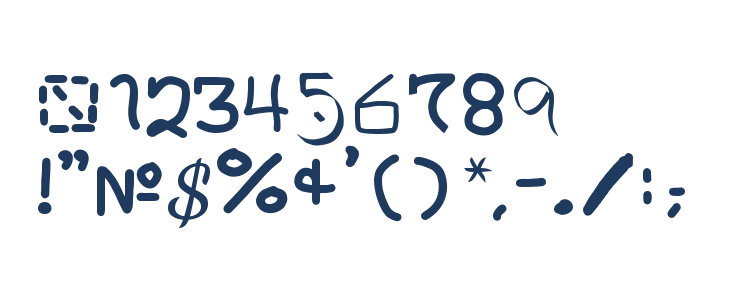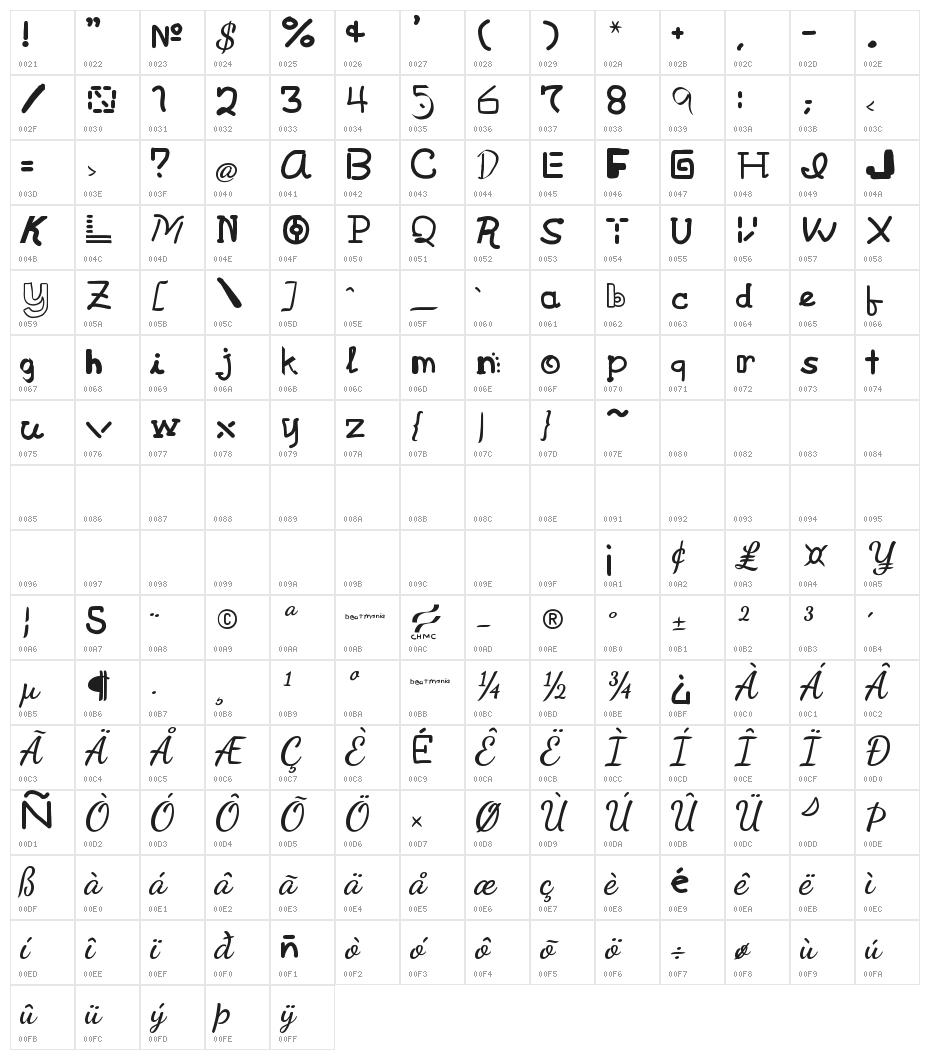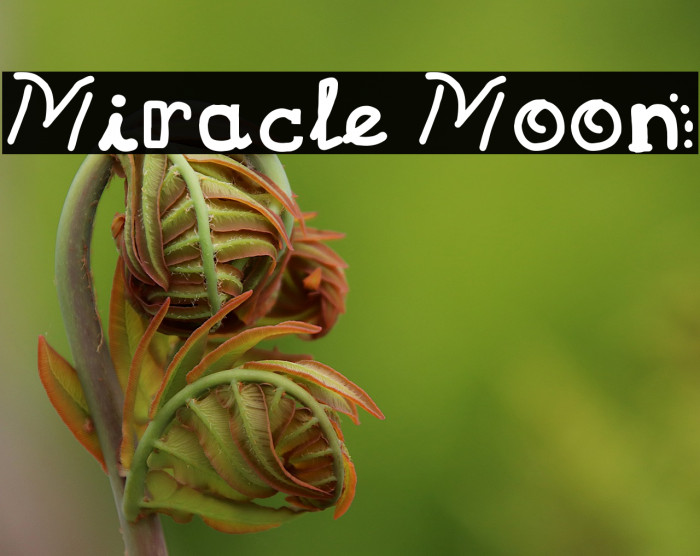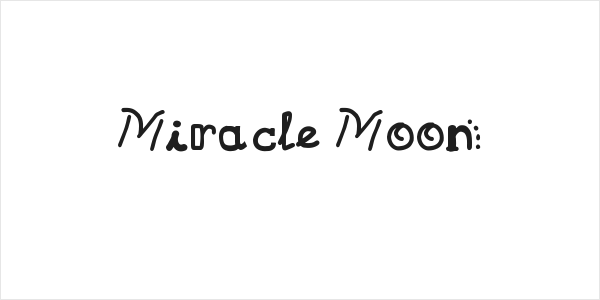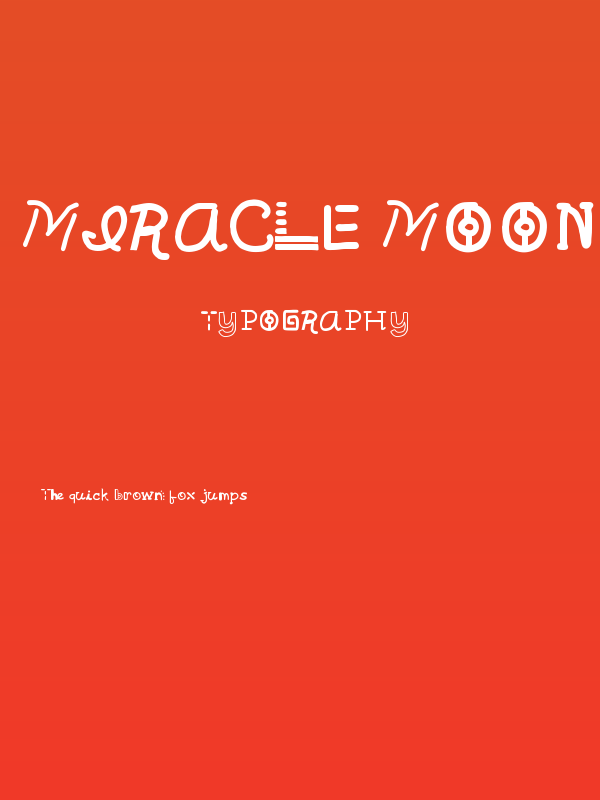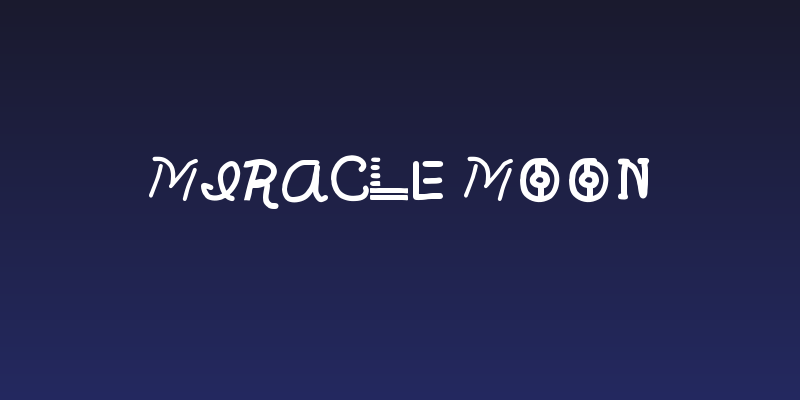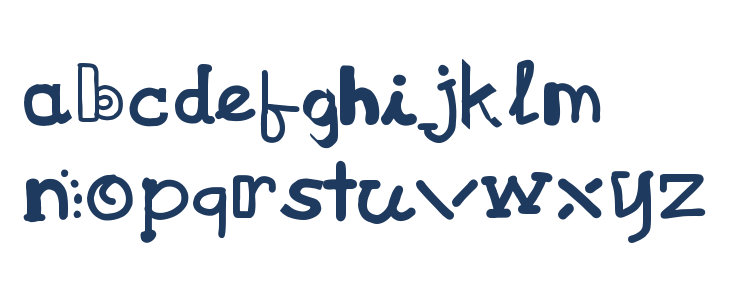
Miracle Moon Font
Miracle Moon Description
This font features a playful and eclectic design, combining elements of both geometric and organic shapes. The uppercase letters exhibit a variety of styles, with some characters incorporating unique embellishments such as spirals and dots. The lowercase letters maintain a more consistent style, with a hand-drawn, whimsical appearance. Numbers and special characters continue the theme, offering a mix of bold and light strokes, adding to the font's quirky and artistic feel. The overall design is highly decorative, making it suitable for creative and informal projects.